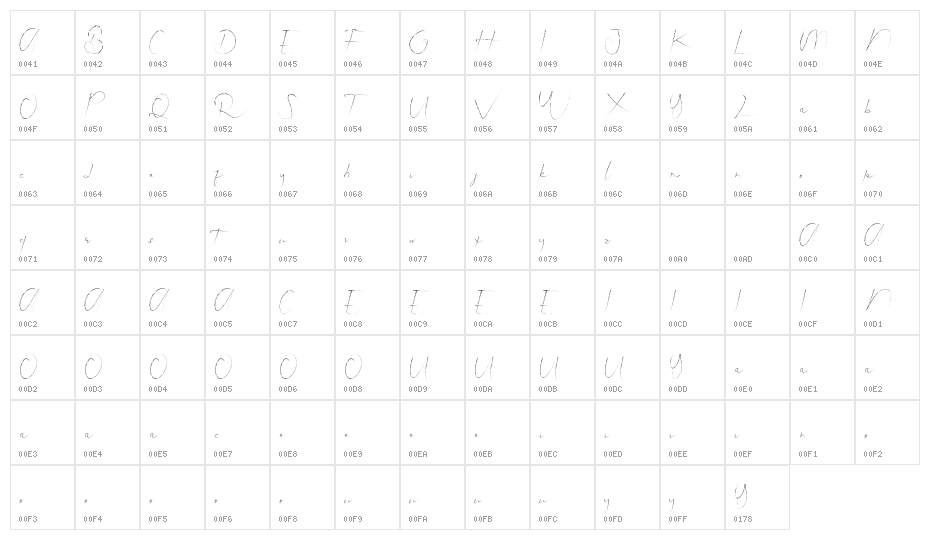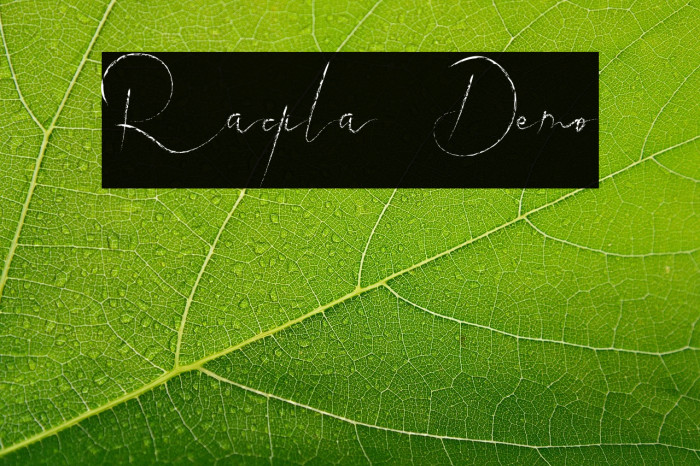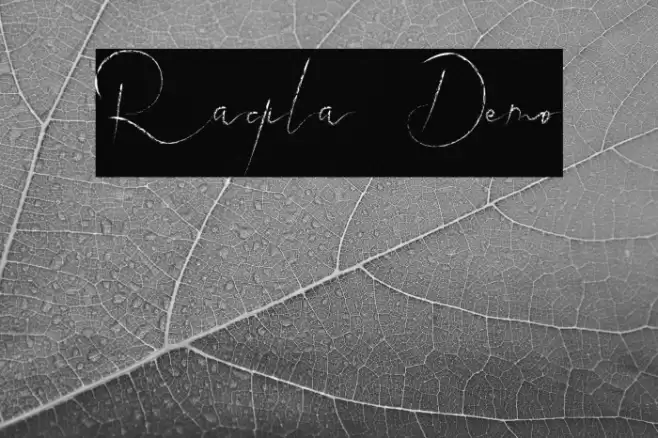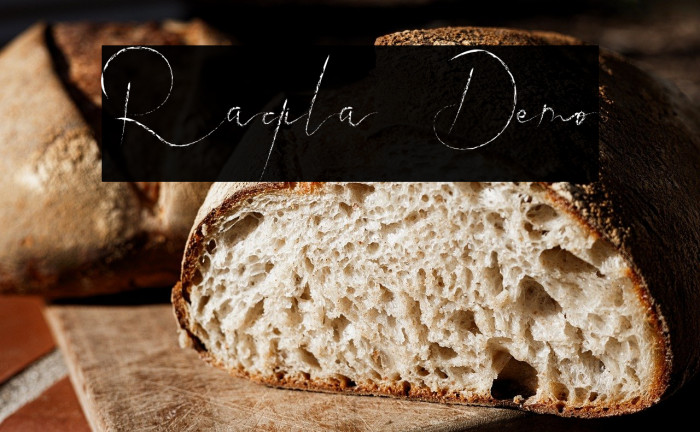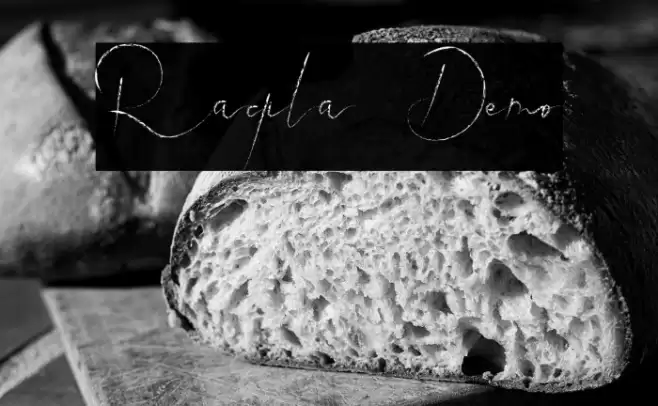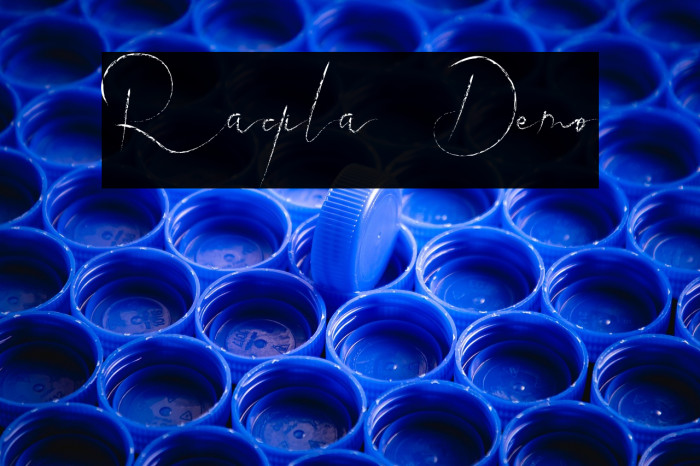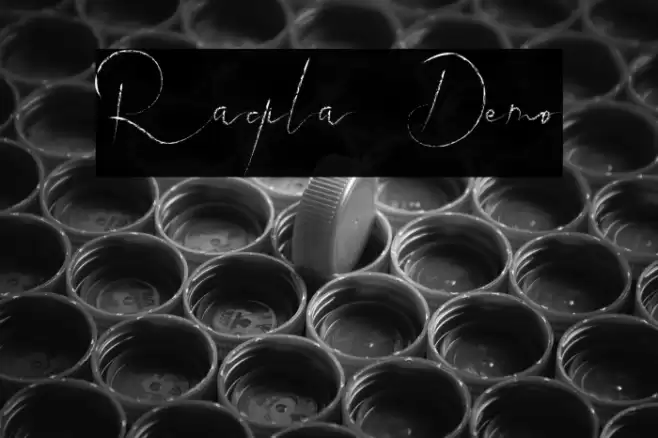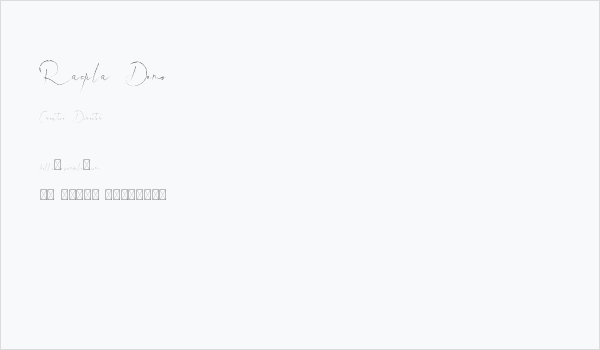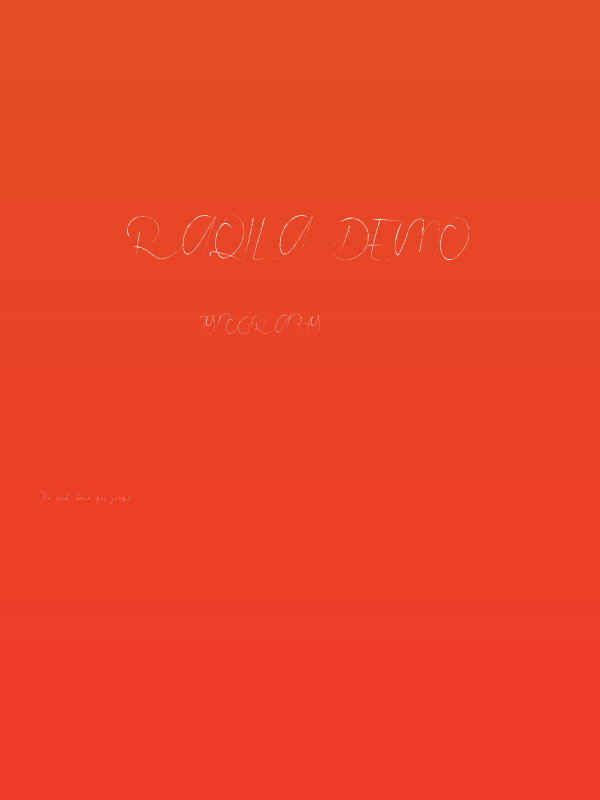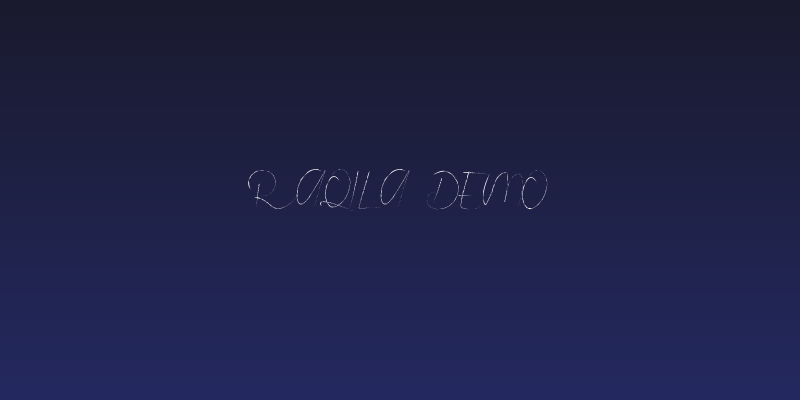
Raqila Demo Font
Raqila Demo Description
This font exhibits a delicate and elegant handwritten style, characterized by its flowing and cursive letterforms. The uppercase letters are tall and slender, with a graceful, sweeping motion that gives them a sense of fluidity and movement. The lowercase letters maintain a consistent style, with gentle curves and a slightly slanted orientation, enhancing the handwritten feel. The overall design is airy and light, with a refined aesthetic that suggests sophistication and elegance. The font's thin strokes and subtle variations in line weight contribute to its delicate appearance, making it suitable for projects that require a personal and artistic touch.
| Overall Style | Elegant, Artistic |
| Use Case | Invitations, Branding, Artistic projects |
| Proposed Projects | Ideal for wedding invitations, personal branding, elegant stationery, and artistic projects. |